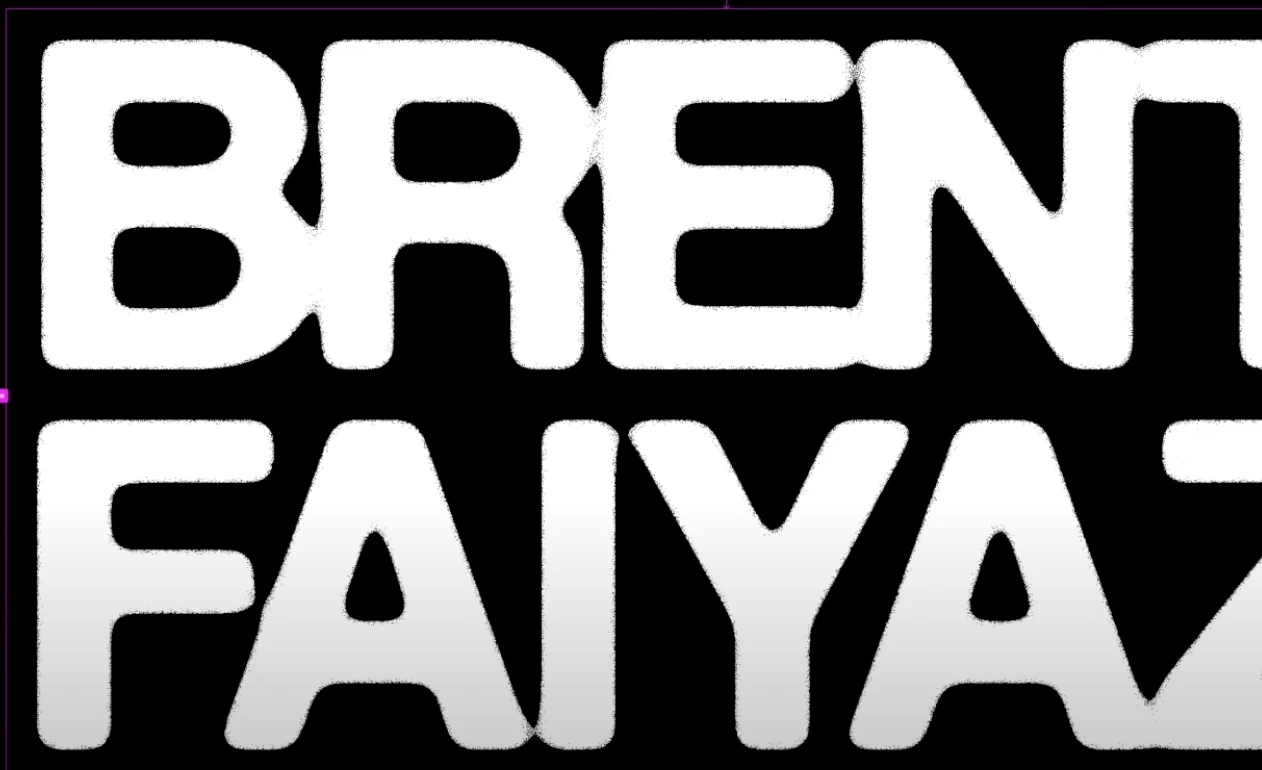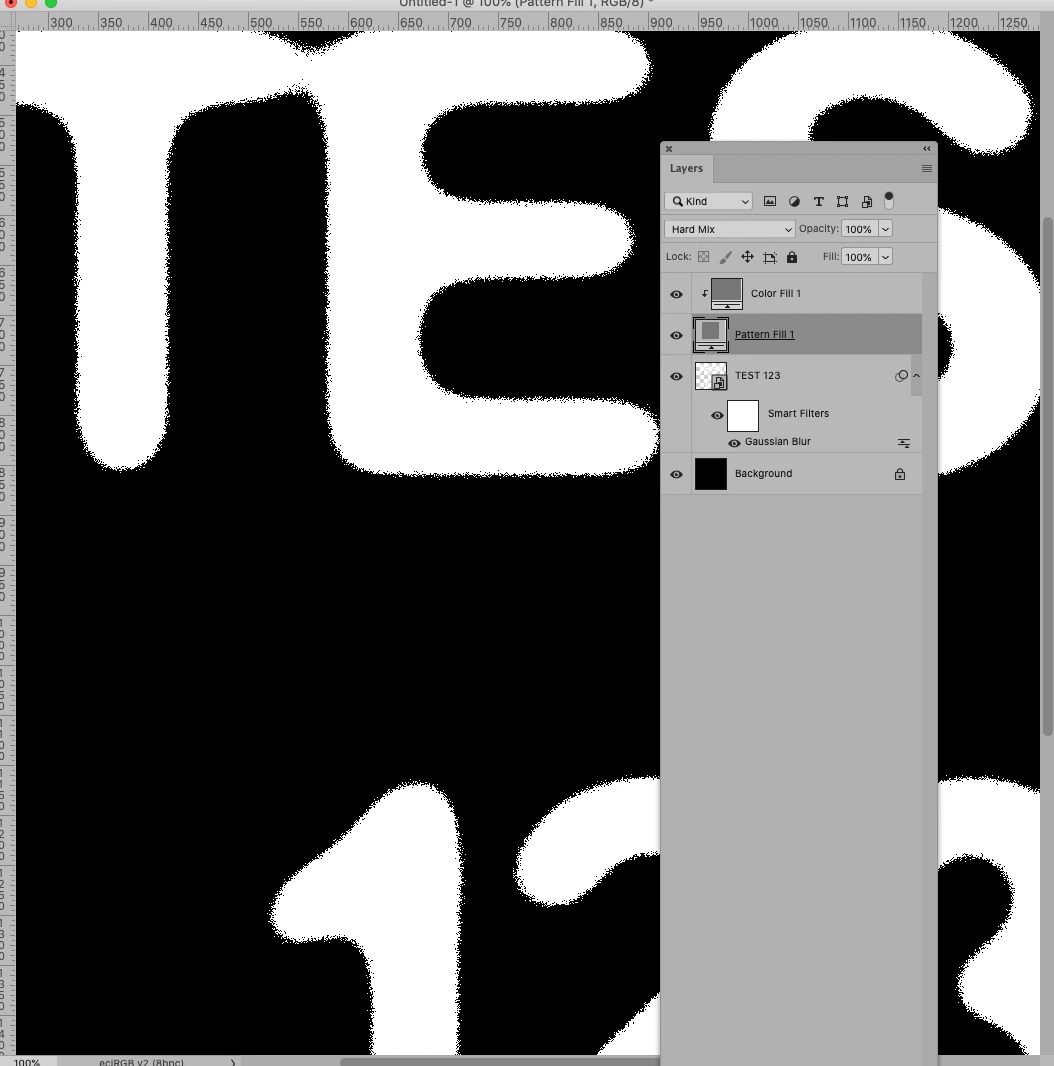
Does anyone know the steps in oder to achieve this font effect?
I want to add this effect to font. I believe it is achieved by a combination of [gaussian blur] and [add noise].
If I were doing this in Illustrator, I would add a stroke using the Appearance panel to the live text and apply a brush to the stroke using the same color as the background.
In Photoshop I don't think you can apply a brush to live text, but the concept is similar.
One option might be
• Smart Object
• Gaussian Blur
• Hard Mix Layer with Noise